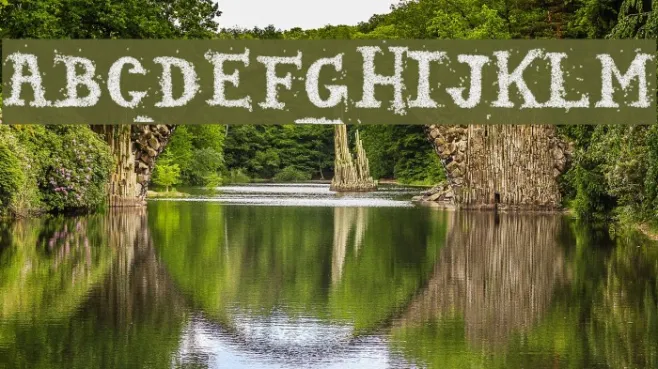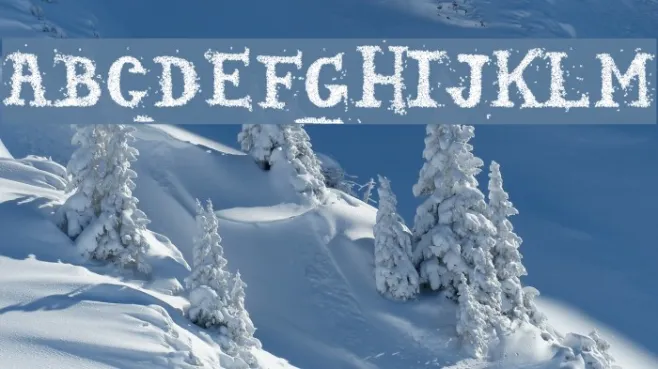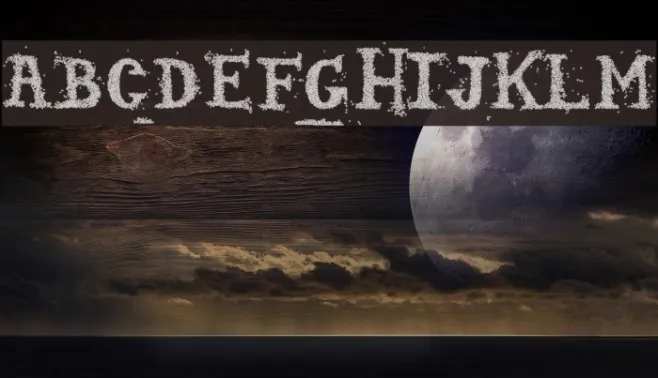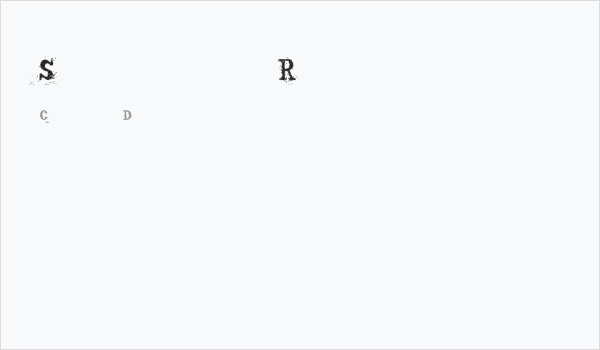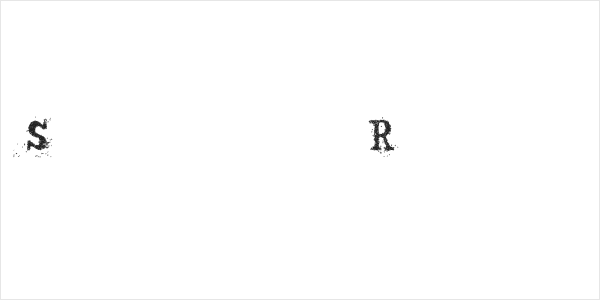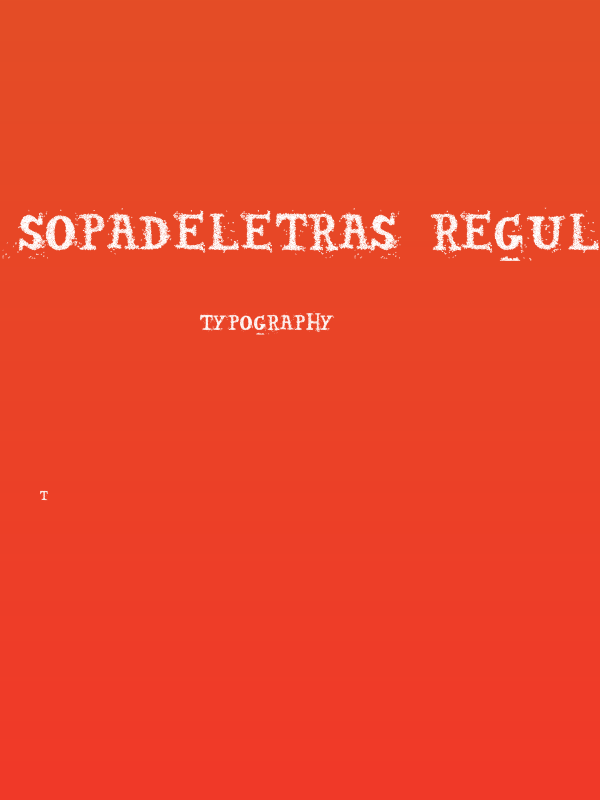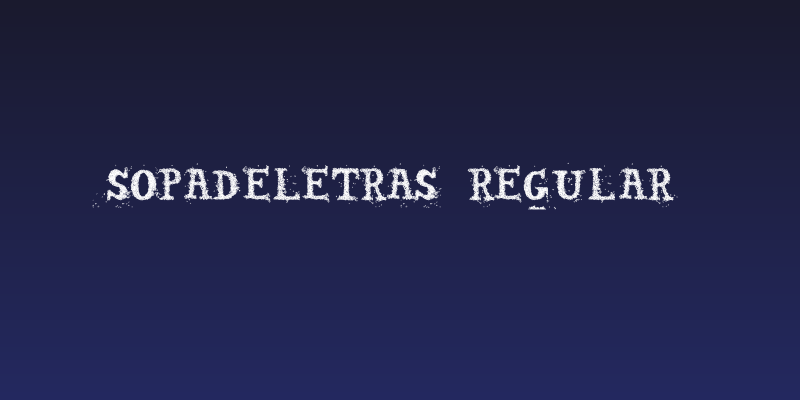
Sopadeletras-Regular Font
Sopadeletras-Regular Description
This font features a distressed, textured appearance reminiscent of vintage typewriter or letterpress styles. Each character is uniquely weathered, giving it a rustic and handcrafted feel. The uppercase letters are bold and prominent, with a slightly uneven baseline that adds to the organic aesthetic. The serif detailing is pronounced, contributing to its classic yet rugged look. This font is ideal for projects that require a touch of nostalgia or a gritty, authentic vibe. Its distinctive style makes it suitable for artistic and creative applications, where a strong visual impact is desired.
| Proposed Projects | Ideal for vintage-themed posters, album covers, branding for artisanal products, or any design needing a rustic, authentic touch. |